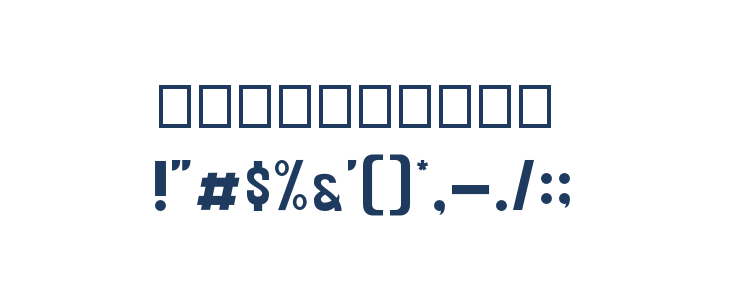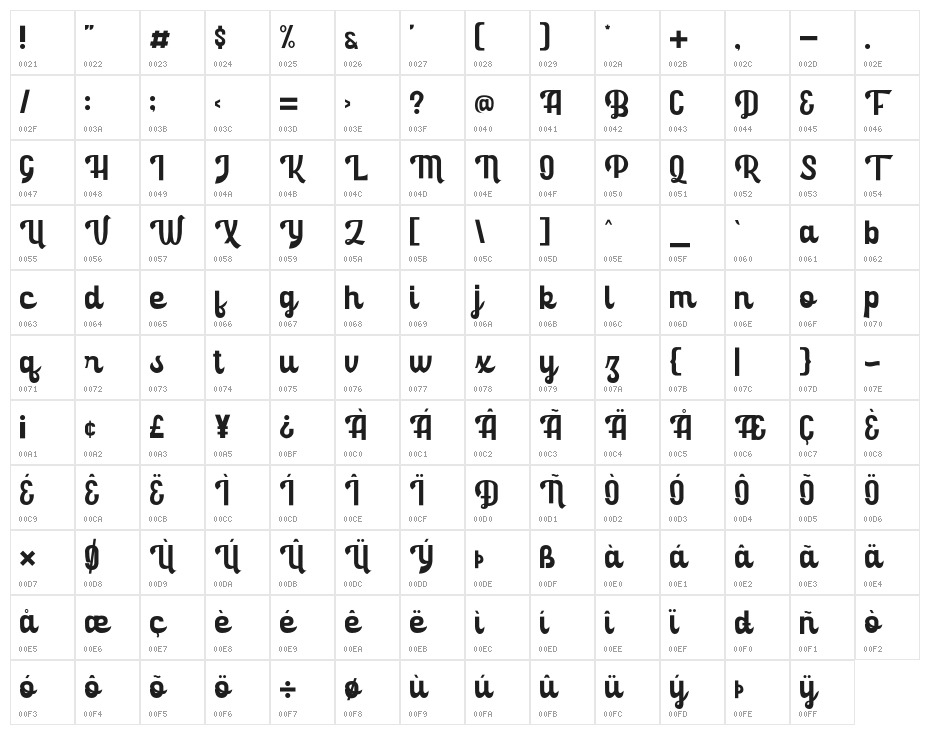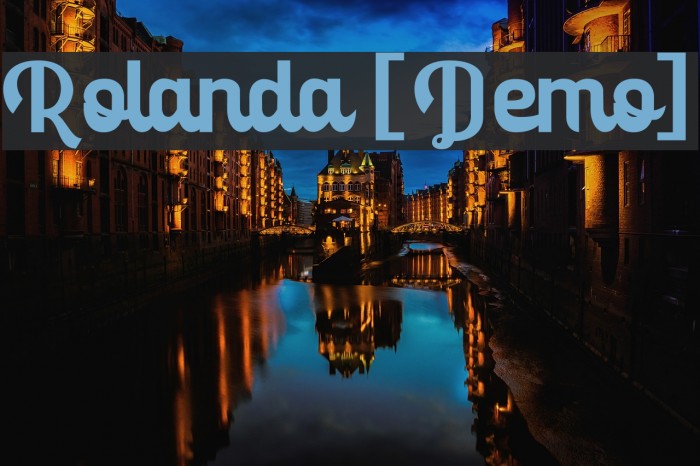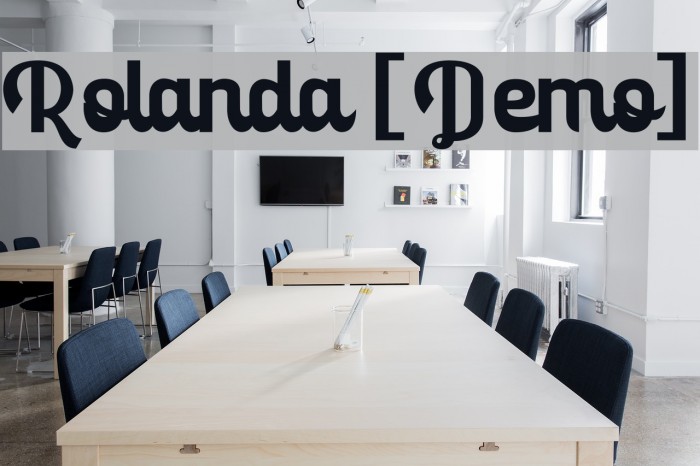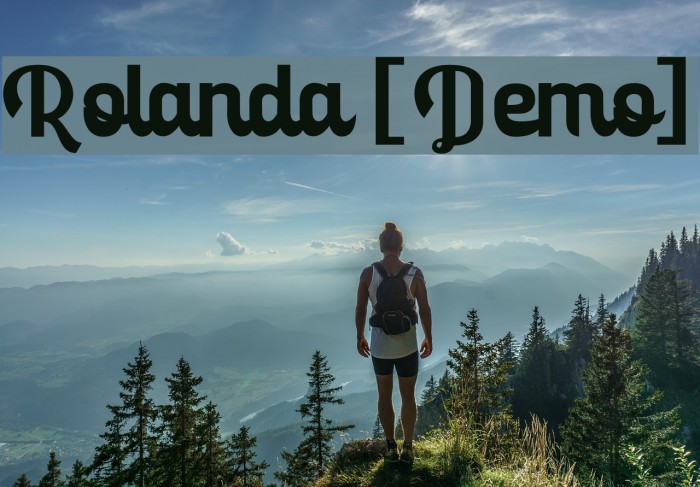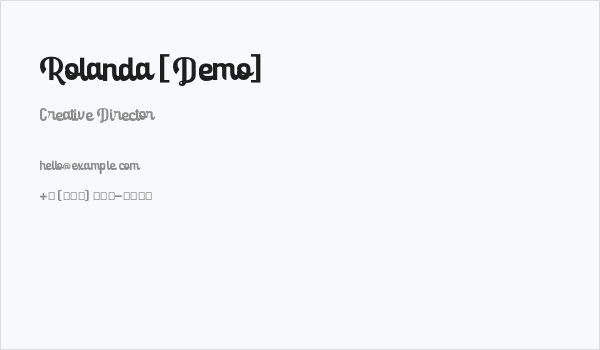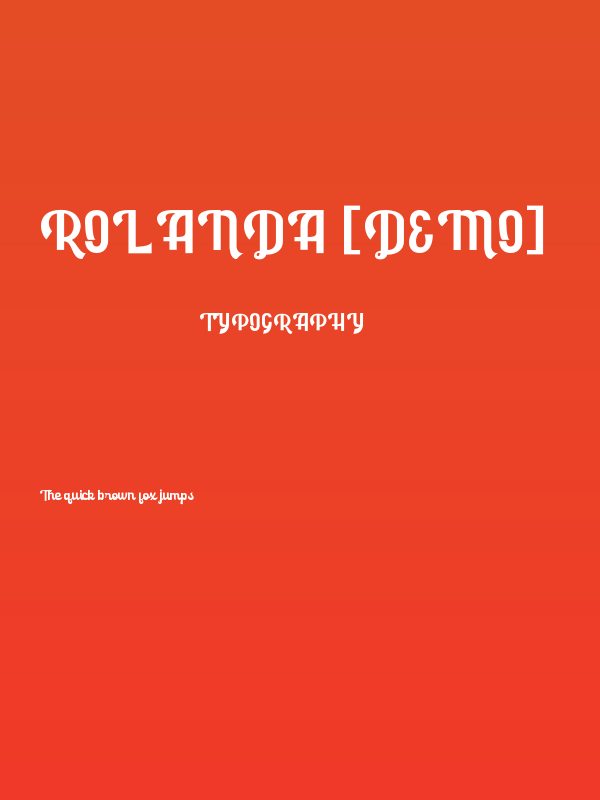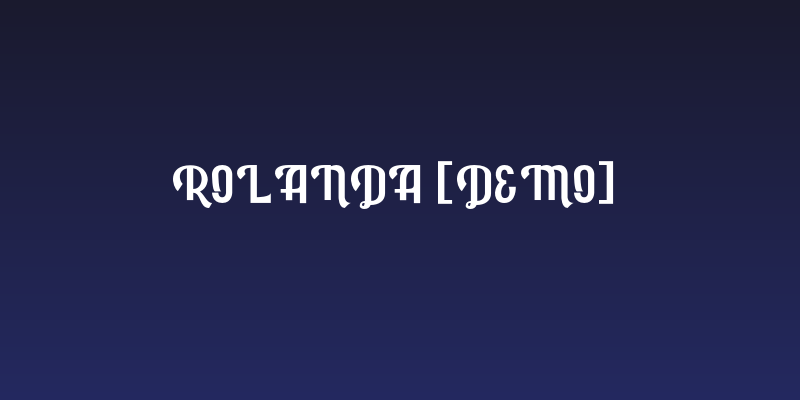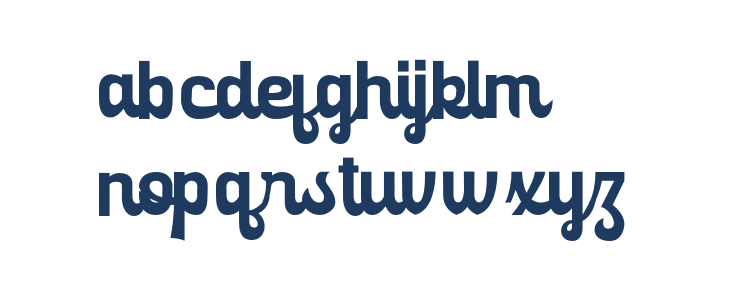
Rolanda [Demo] Font
Rolanda [Demo] Description
This font features a bold and decorative style with a unique blend of modern and vintage elements. The uppercase letters exhibit a playful, yet structured form with distinct curves and flourishes, giving them a whimsical appearance. The lowercase letters maintain a consistent boldness, with smooth, rounded edges that enhance readability. The numbers and special characters follow the same stylistic cues, ensuring a cohesive look across all glyphs. The font's overall design is eye-catching, making it suitable for creative projects that require a touch of elegance and flair.
| Proposed Projects | Ideal for branding, poster design, invitations, and any project that requires a distinctive and artistic touch. |